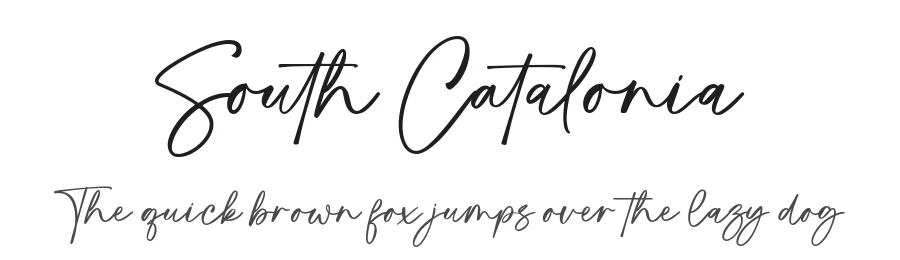
About Galatine Font
Galatine is a script-handwritten font that captures the natural rhythm of pen on paper with genuine character. Created by designer Ramli Setiadi, it brings flowing, organic letterforms to any project that benefits from the warmth and humanity of authentic handwriting. With 210 glyphs and robust support for 196+ Latin-based languages, the font successfully balances organic handwritten character with practical multilingual coverage, making it suitable for international clients who want personal authenticity across languages.
The regular-weight script excels in applications where personality and genuine human touch matter most. Wedding invitations gain intimate warmth through its flowing strokes and graceful letterforms, while greeting card designers rely on it to convey authentic emotion across congratulations, thank-you, and seasonal designs. Social media creators turn to Galatine for illustrated posts, captions, and storytelling where a handwritten aesthetic strengthens visual connection. Craft projects including scrapbooking layouts, handmade product labels, decorative stationery, and artistic posters all benefit from the font's human-centered quality that mass-produced typefaces rarely achieve.
Galatine Font is a script font that shines as a display or heading face. Pair it with a clean sans-serif or serif font for body text β the contrast creates a clear hierarchy while the two styles stay balanced and easy to read.